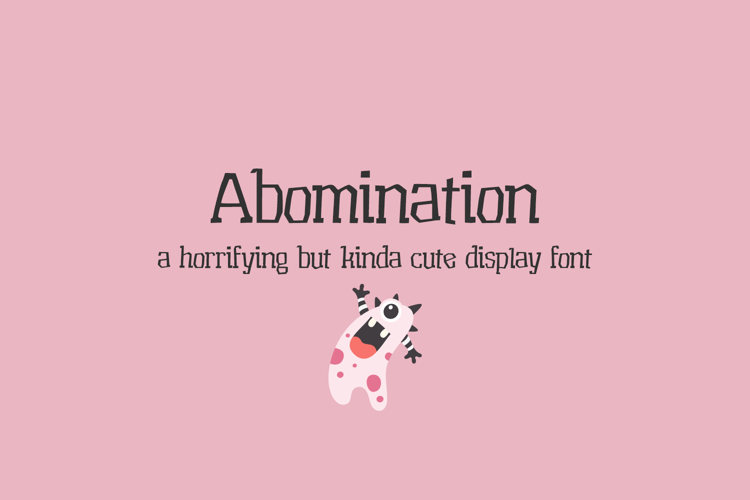
Abomination - Scary Halloween Font
Bring a shiver to your lettering with Abomination 2.0! This spooky display font features tall, irregular letterforms, sharp serifs, jagged edges, and trembling line details for a wonderfully eerie look.
Perfect for Halloween party invitations, haunted house signs, monster-themed projects, shirts, greeting cards, and scrapbook titles. Its quirky horror style adds personality to spooky headlines and creepy seasonal sayings.